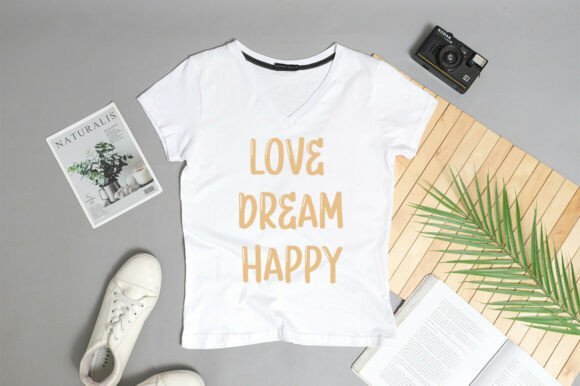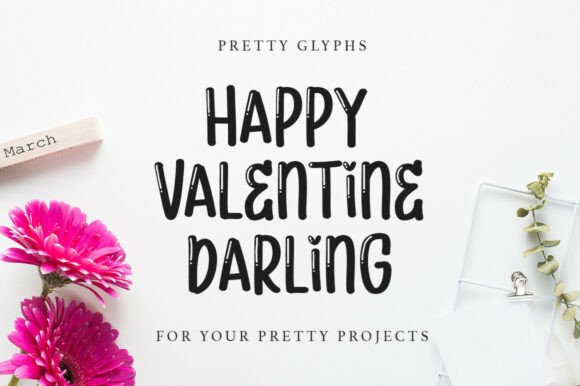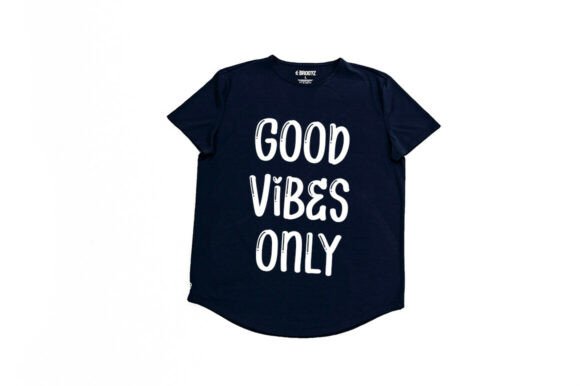
Introduction to Silka Shine Font
Have you ever been working on a design project, and the perfect font just slips through your fingers? Maybe you’re creating a social media campaign for a beauty brand, and you want your message to pop, but nothing seems to capture that elusive “glow.” That’s where the Silka Shine Font comes in – a game-changing, high-quality typeface that’s sure to bring a touch of magic to your creative project.
Imagine a font that’s not just visually stunning but also tactilely engaging, with its unique “shine” marks giving the letterforms an instant 3D effect that feels celebratory and bright. The Silka Shine Font is perfect for designers who want to add a literal “sparkle” to their message without needing complex 3D software. With its thick, rounded, and friendly letters, this font is a design resource that’s sure to delight your clients and make their products stand out on a transparent background.
Whether you’re designing a birthday branding campaign, creating a festive event poster, or developing a sugary sweet food packaging, the Silka Shine Font is an excellent choice. And the best part? It’s available for a free download, making it an accessible and valuable resource for designers of all levels.
Key Features of Silka Shine Font
- High-quality font with a transparent background, ideal for creative projects that require a modern and sleek look.
- Features a unique and elegant design, perfect for use in branding, typography, and other creative applications.
- Supports various languages, including Latin, Cyrillic, and Greek, making it a versatile font for global projects.
- Has a resolution of 300 DPI, ensuring crisp and clear text output in both digital and print media.
- Designed to be highly legible, with a clear and concise appearance that is easy on the eyes.
Honest Review: Silka Shine Font
I recently came across the Silka Shine Font while searching for a high-quality design resource for a creative project. At first glance, I was drawn to its unique and elegant style. The font is perfect for creating a sophisticated and modern look, especially when used with a transparent background.
Here’s what works well:
- ✨ The font is highly legible, making it suitable for both print and digital designs.
- ✨ The font comes in a range of weights, from light to bold, offering flexibility for various design applications.
- ⚠️ The font may not be suitable for designs that require a more playful or casual tone.
- ⚠️ The font’s uniqueness can also be a drawback, as it may not be easily paired with other fonts.
Overall, I’m impressed with the Silka Shine Font. While it may not be the best fit for every design project, it’s an excellent resource for designers looking for a high-quality, elegant font. Its free download option makes it an attractive choice for designers on a budget.